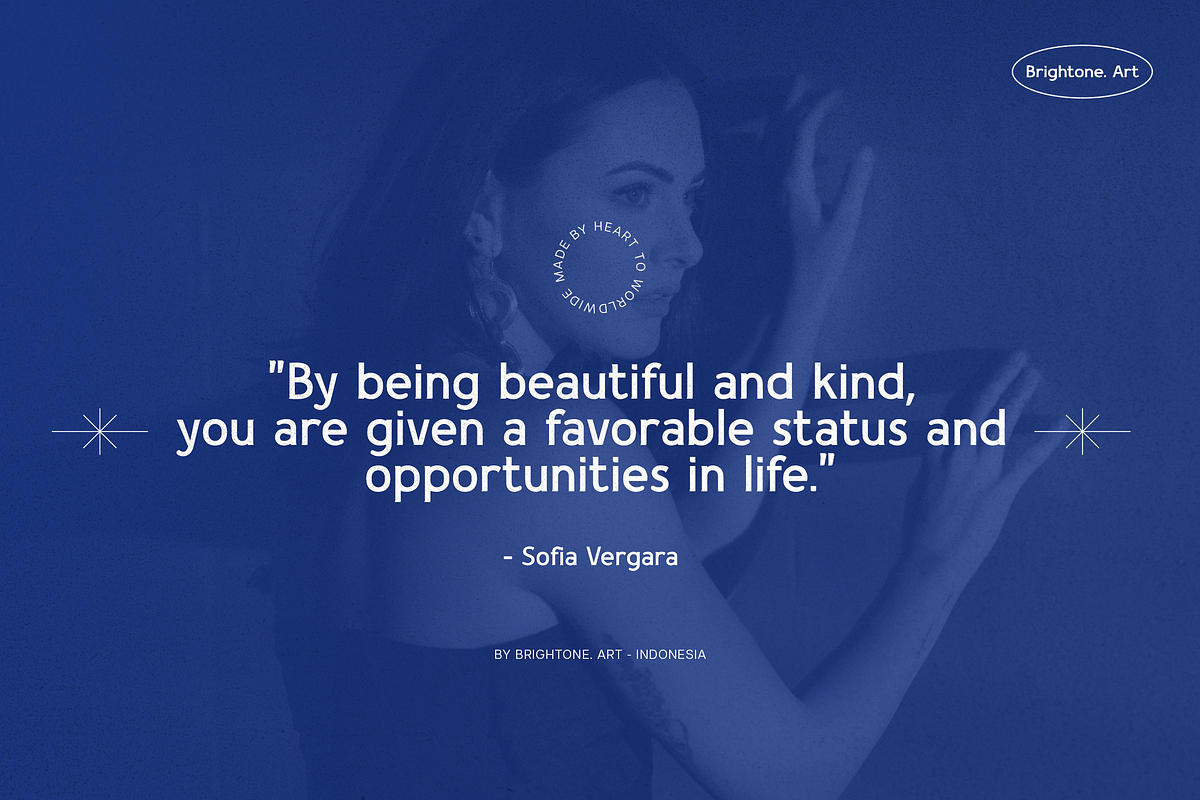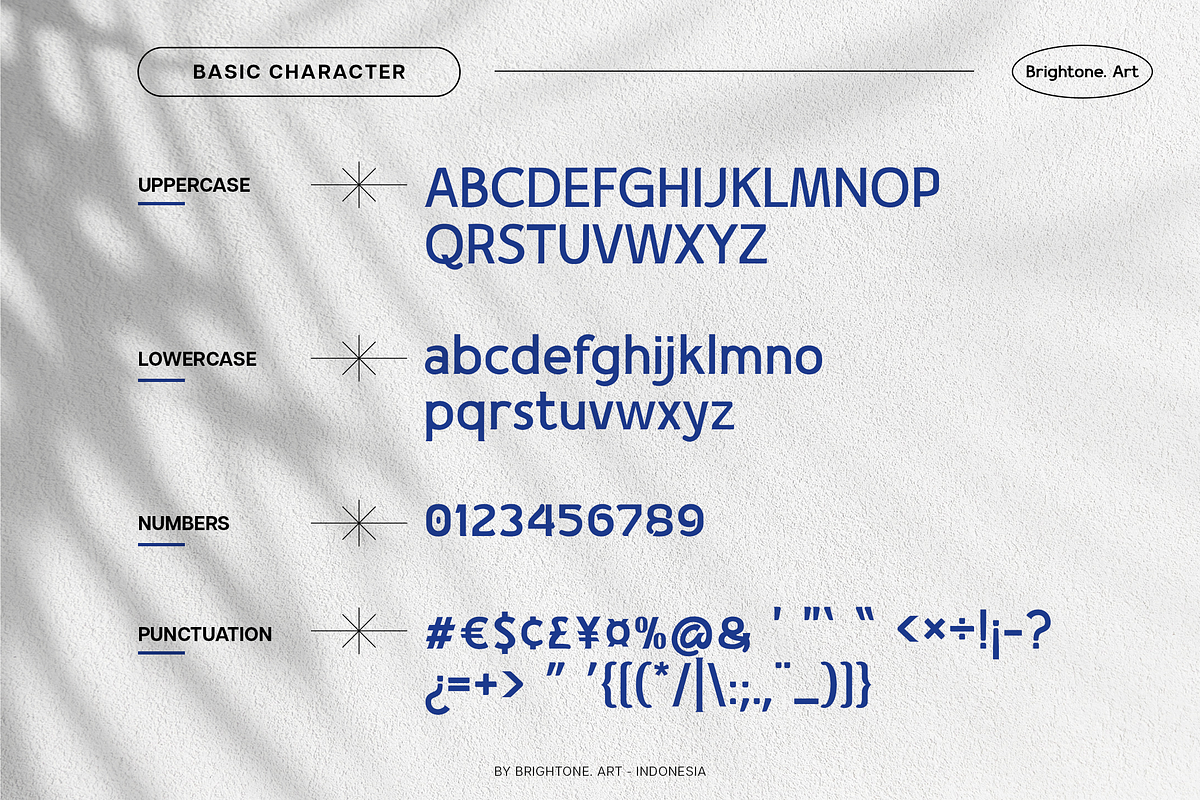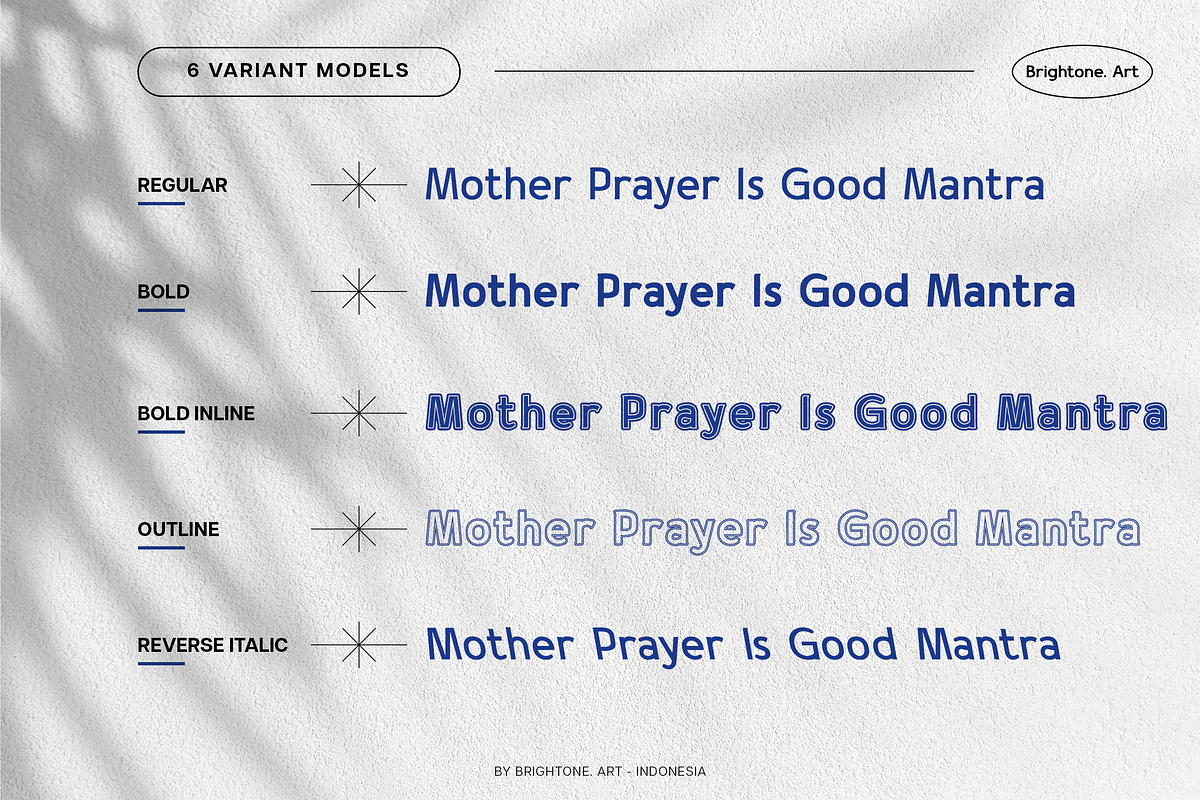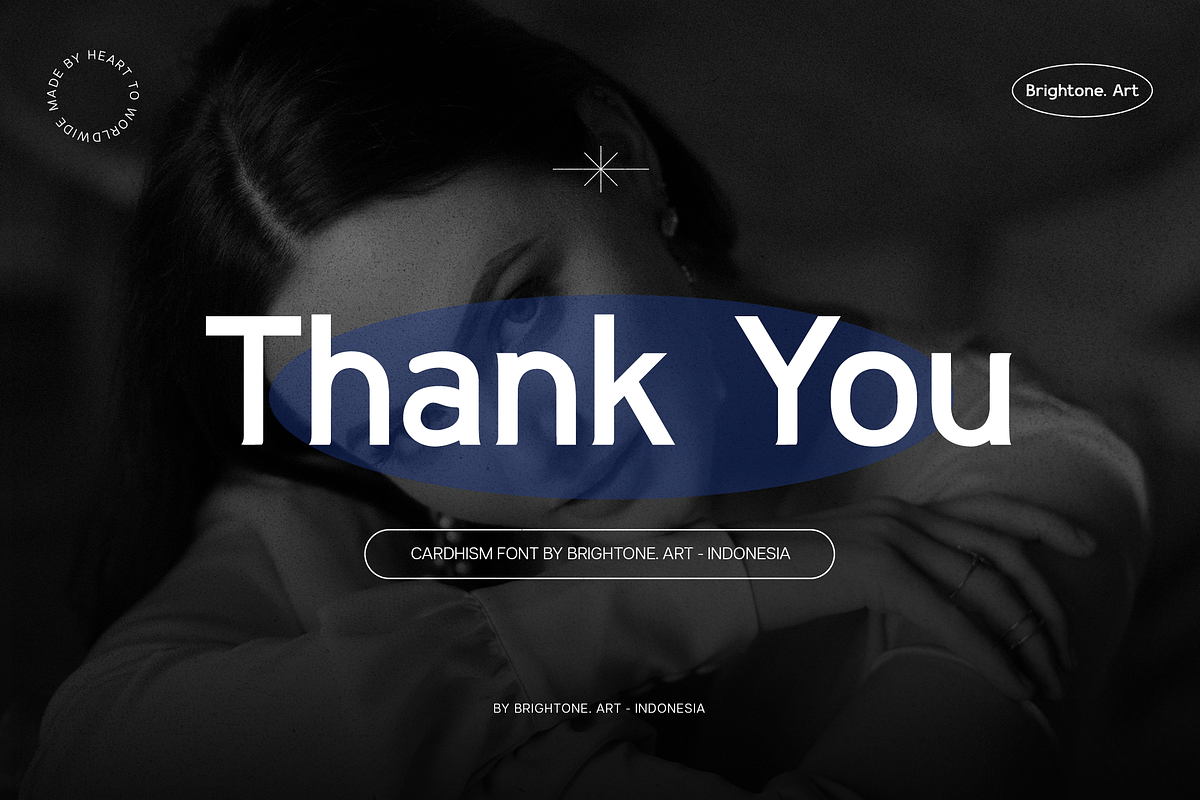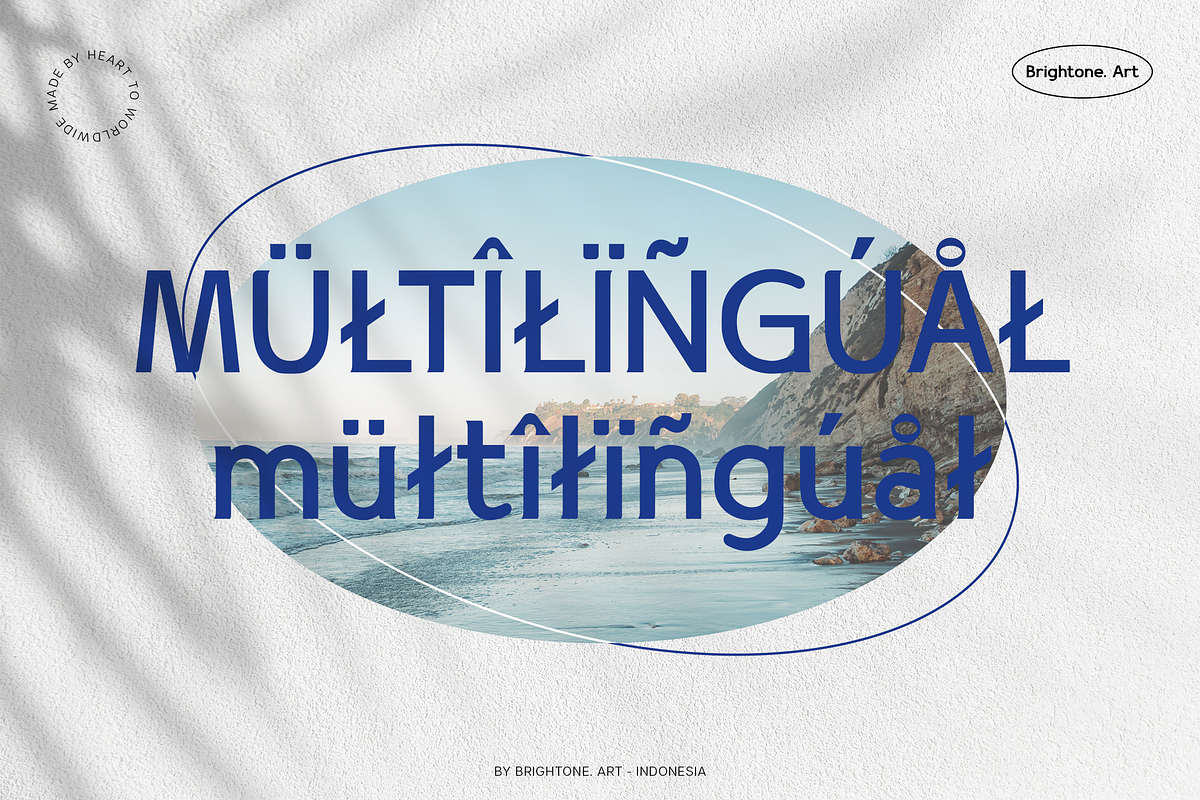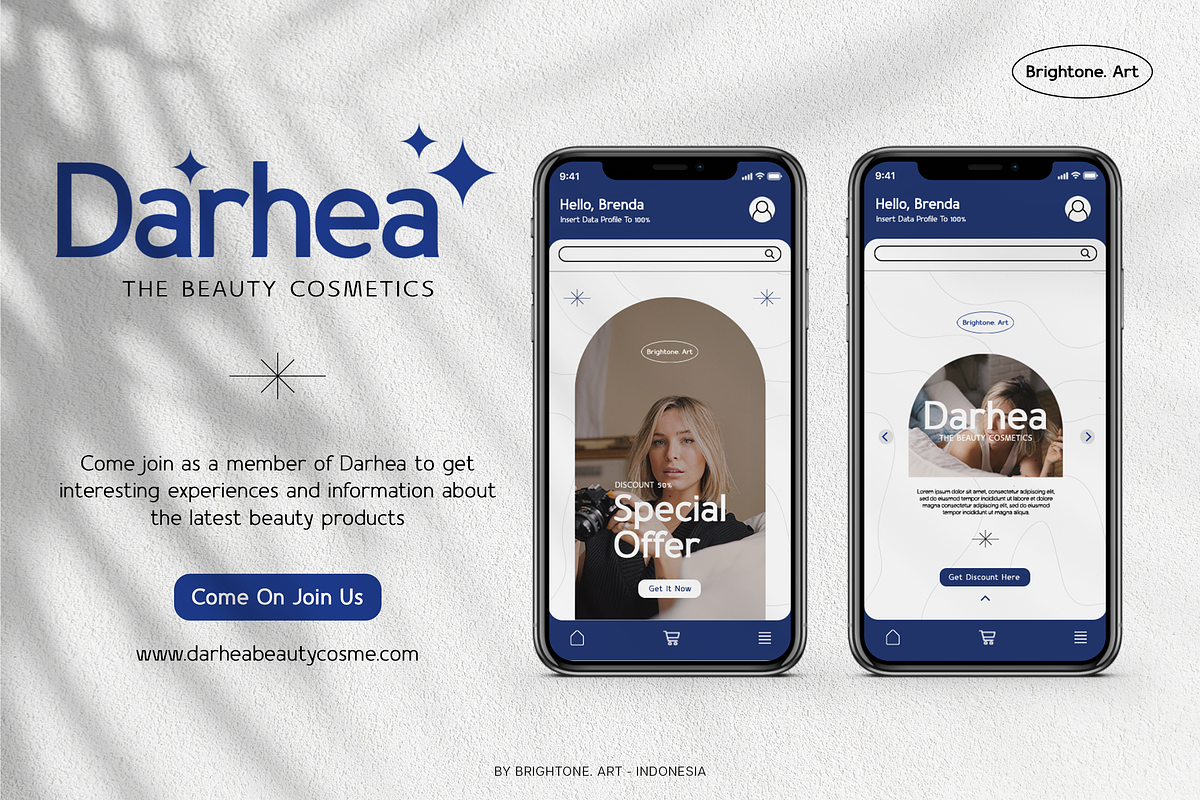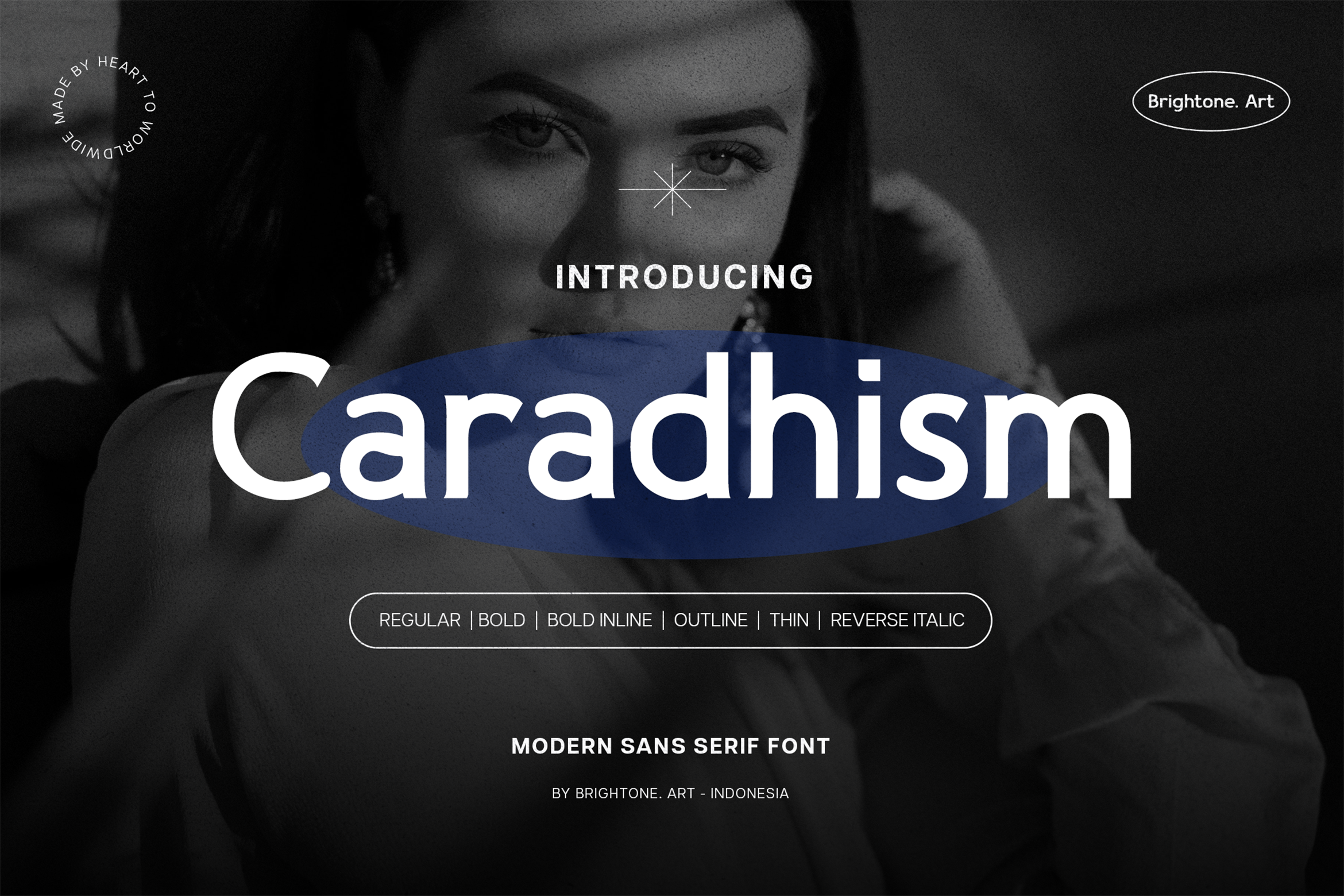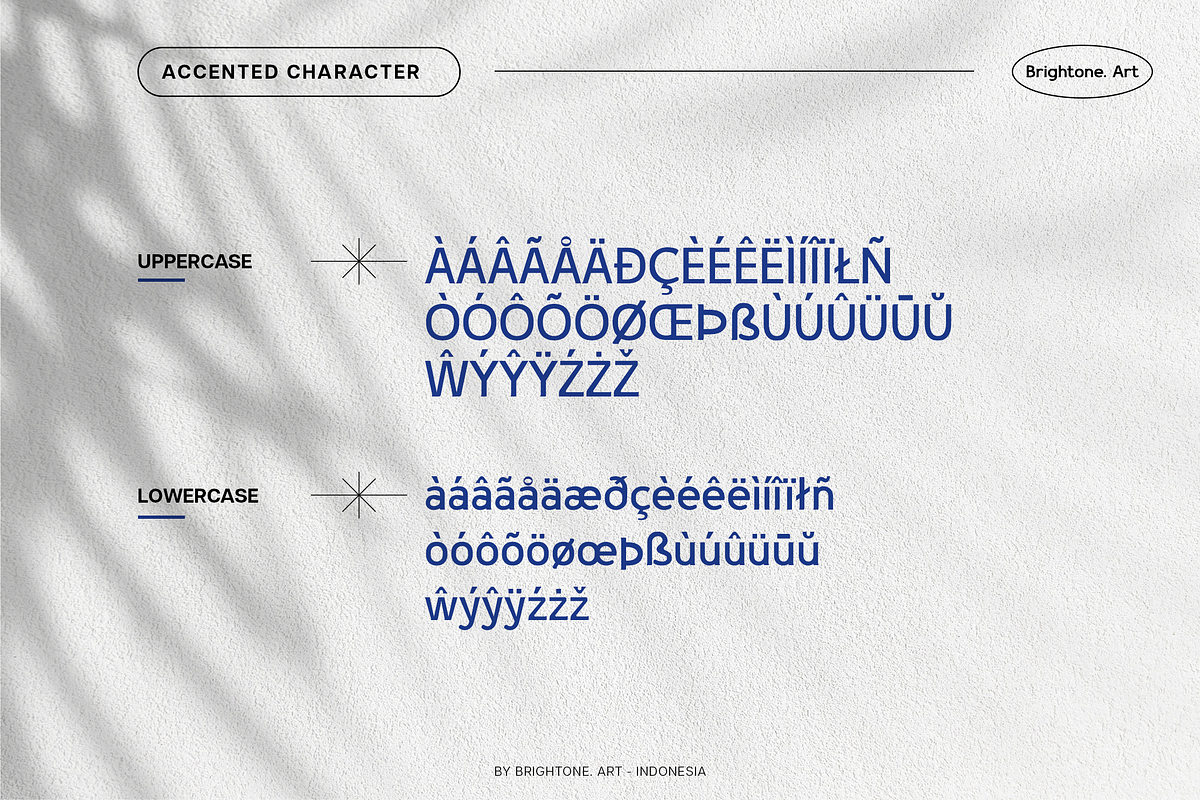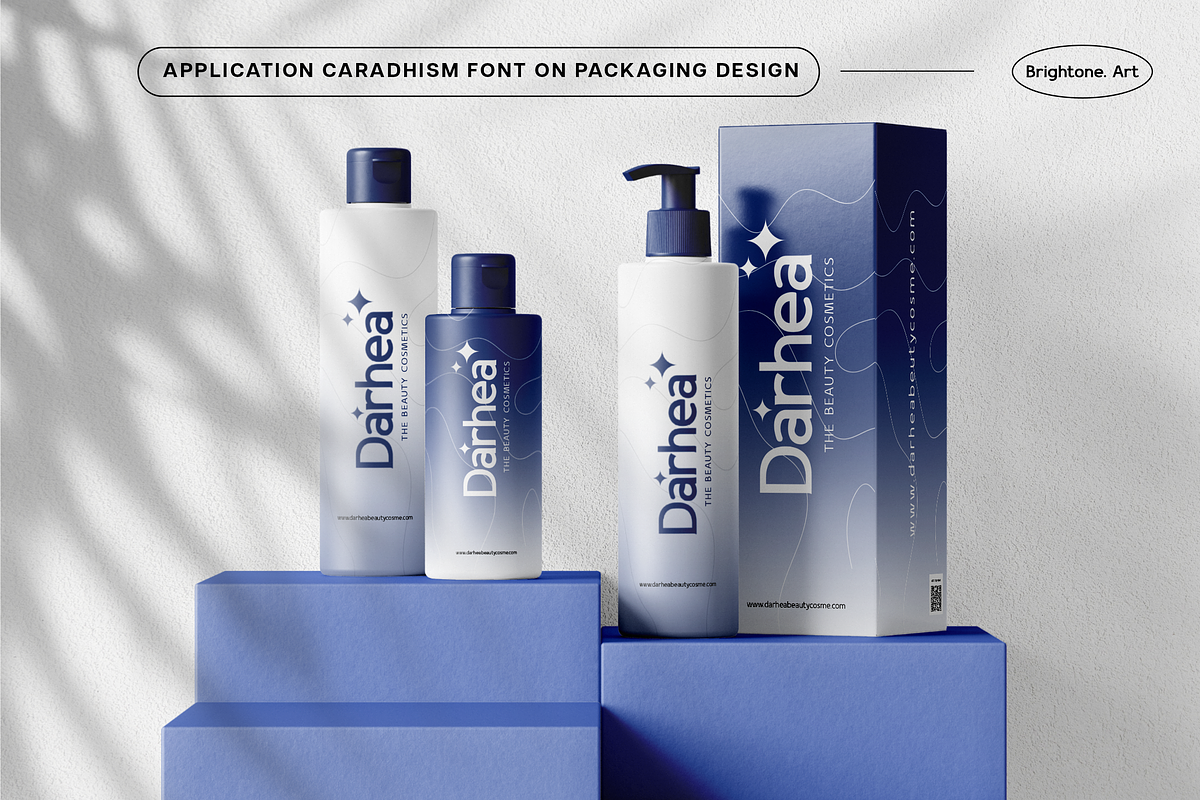
Caradhism - Modern Sans Serif Font
CARADHISM is modern sans serif font with some little glyphic style, these font includes:
- Uppercase and Lowercase Characters, Numbers and Punctuation.
- Multilingual Support (Eastern, Central and Western European countries).
CARADHISM comes in 6 different styles:
- CARADHISM - Regular.
- CARADHISM - Bold.
- CARADHISM - Bold Inline.
- CARADHISM - Outline.
- CARADHISM - Reverse Italic.
- CARADHISM - Thin (Extra).
CARADHISM font is suitable to use for all purpose for your logo lettering, logo, label, packaging, sticker, branding and many more.